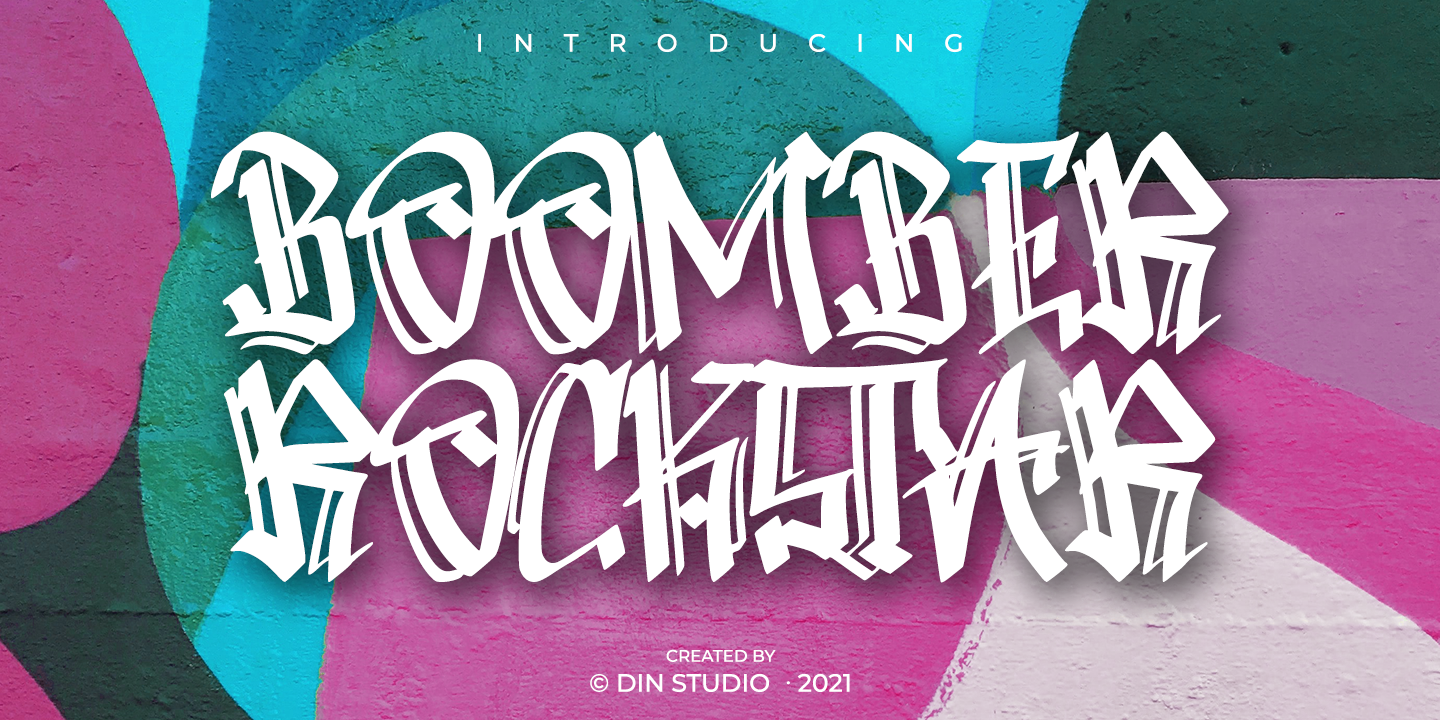
Boomber Rockstar Font is perfect for rock band merchandise, concert poster design, music festival graphics, heavy metal album covers, rock radio station branding, guitar shop signage, music venue promotions, rebellious fashion labels, underground music events, and explosive entertainment campaigns where bold, rebellious typography channels raw energy and rock-and-roll attitude.
What makes Boomber Rockstar Font exciting is its explosive combination of aggressive styling and rock-solid character that captures the untamed spirit and rebellious energy of rock music culture through powerfully distorted letterforms. This font features edgy character shapes with jagged edges, explosive effects, and rebellious distortions that embody the raw power and uncompromising attitude of rock-and-roll. The aggressive styling and electrifying personality make it ideal for applications requiring maximum impact, rebellious spirit, and the authentic appeal of underground music culture.
Boomber Rockstar Font family includes Regular, Bold, and Ultra Bold weights, each amplified with varying degrees of distortion and explosive effects that create different levels of visual intensity for high-energy design hierarchies. The family also features outline variations, shadow effects, and textural distortions that enhance the font's rebellious rock aesthetic. Each variant maintains the font's explosive character while providing flexibility for diverse music industry and entertainment applications.
Boomber Rockstar Font supports comprehensive character coverage including music symbols, explosive punctuation, and rock culture terminology necessary for professional music industry communications and concert documentation. The font's carefully engineered metrics ensure excellent readability despite the aggressive styling while maintaining the rebellious character that defines authentic rock typography. Its powerful construction performs effectively from small band merchandise text to massive concert venue signage applications.
The font's electrifying presence makes it particularly effective for music branding, concert promotions, and rock culture communications where power and authenticity are essential for connecting with music audiences. Whether designing rock festival lineups, band merchandise collections, or underground music venues, Boomber Rockstar Font delivers explosive typography that amplifies the raw energy of rock music while creating unforgettable visual experiences that resonate with rebellious spirits and music enthusiasts effectively.